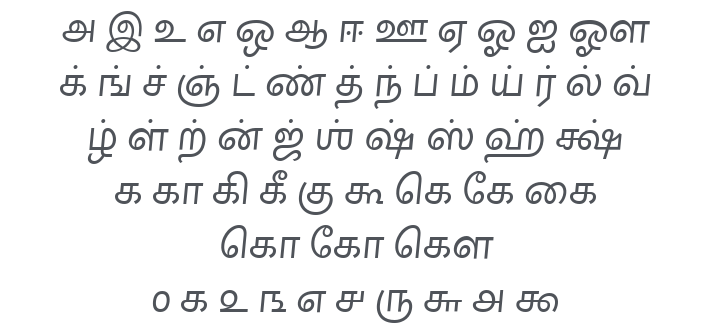
Karla Tamil Inclined Font Family
About Karla Tamil Inclined
Karla is a grotesque sans serif typeface family that supports languages that use the Latin script and the Tamil script. This is the Tamil script part of the family, with Inclined styles in two weights, Regular and Bold.